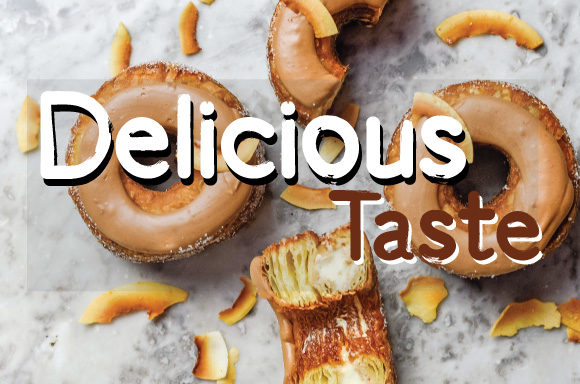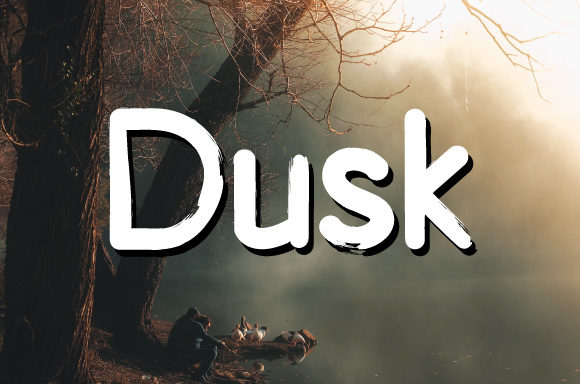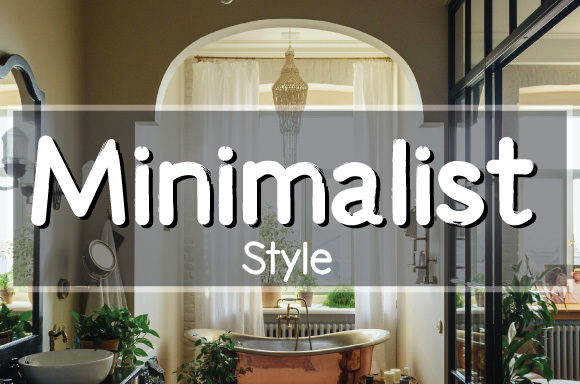
Introduction to Barraca Font
Barraca is a unique and simple display font.
It will elevate a wide range of design projects to the highest level, be it branding, headings, logos, labels, and so much more .
Key Features of Barraca Font
Why Choose Barraca Font?
Barraca Font offers exceptional quality and versatility, making it a valuable addition to your design toolkit. Whether you’re creating for personal projects or commercial use, Barraca Font delivers professional results.